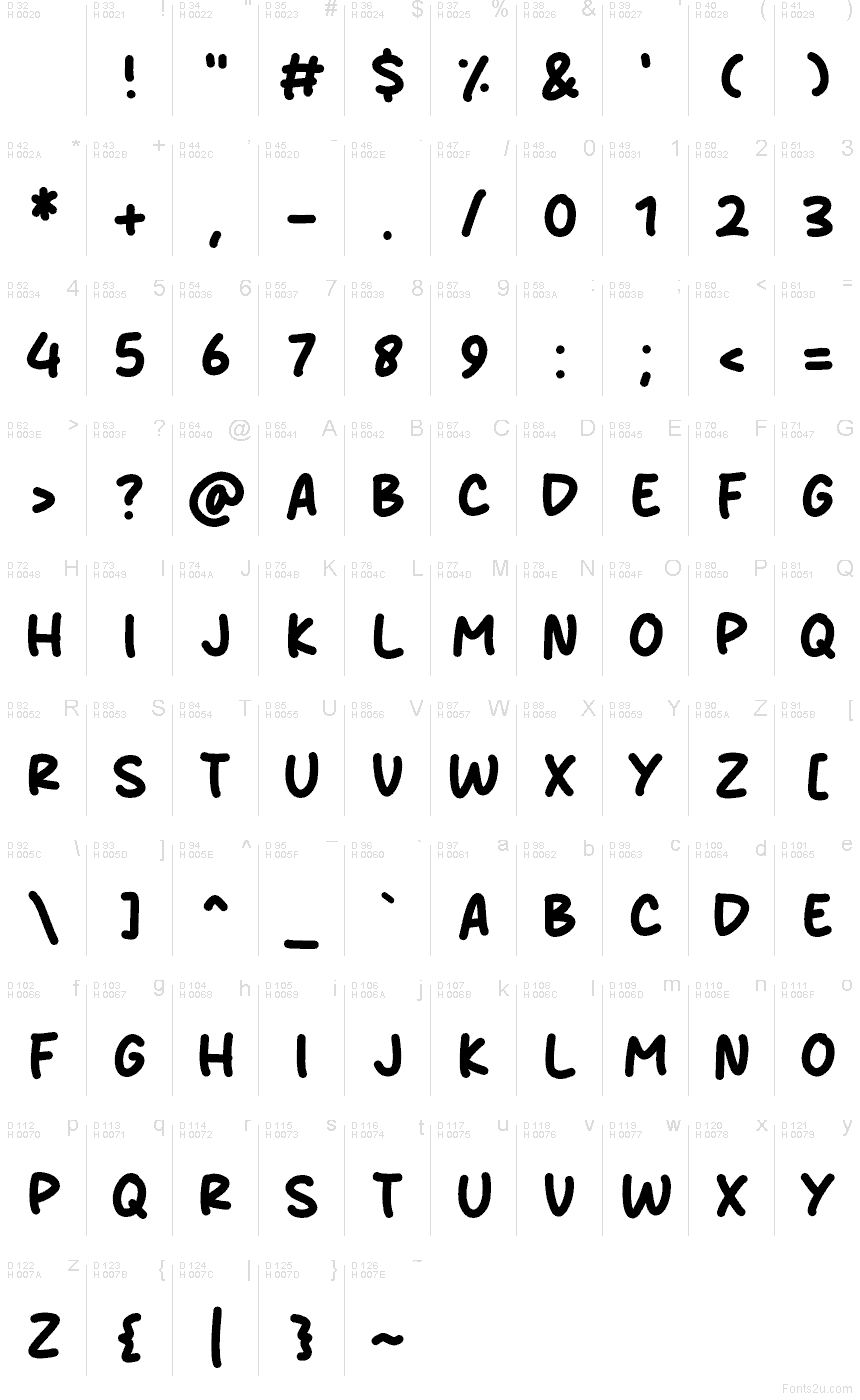
Marinara Sauce by Origin Type is a free handwritten display font with chunky, uneven capitals and a cheerfully loose silhouette. Rounded strokes swell and narrow from letter to letter, and the irregular shapes give the writing the directness of a hand-painted sign.
Casual food brands could use it for sauce labels, takeaway menus, and restaurant signage, where the broad lettering feels friendly and immediate. It also suits children's posters, with the hand-drawn forms becoming part of an illustrated identity.